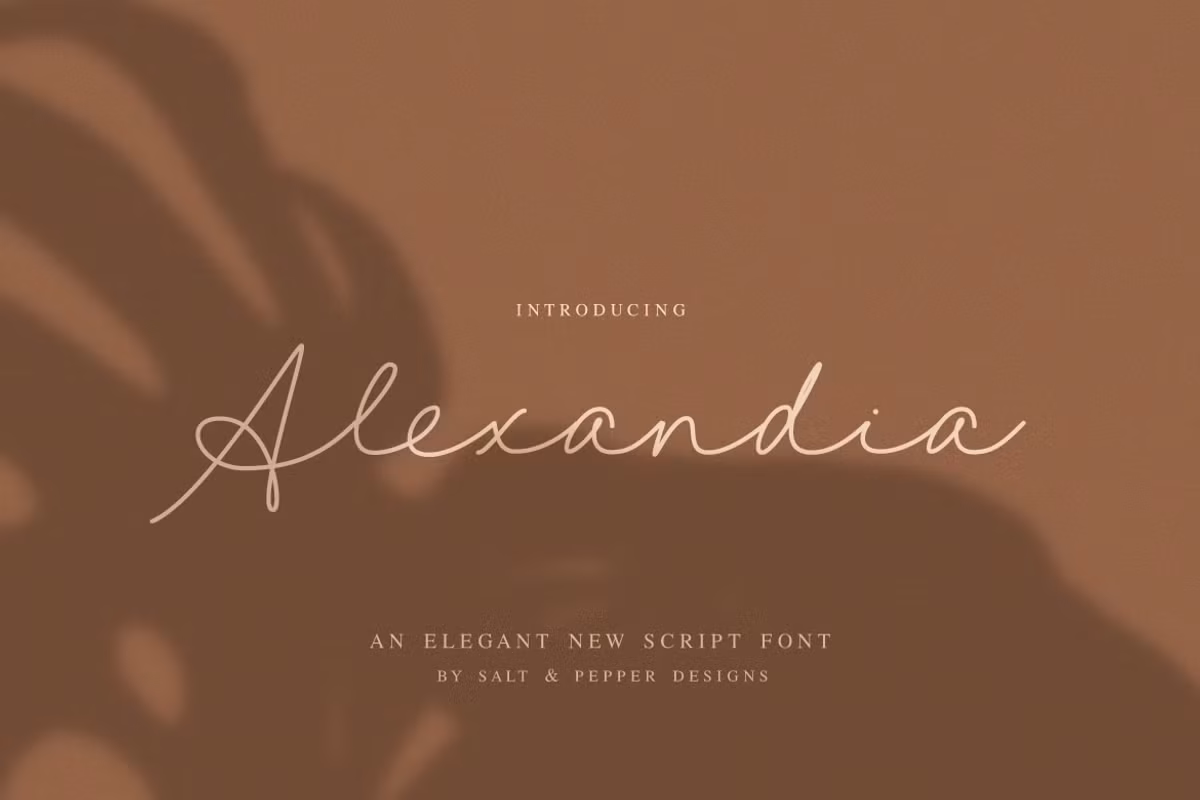
Add a touch of elegance and charm to your design with the Alexandia Script Font Free Download — a graceful handwritten script that flows with style and sophistication. Featuring smooth curves, delicate swashes, and a natural rhythm, this font is perfect for wedding invitations, personal branding, greeting cards, beauty product packaging, and elegant social media graphics.
Alexandia Script captures the feel of modern calligraphy with a timeless appeal, making your typography feel warm, personal, and refined. Whether you're crafting a logo or designing a romantic quote layout, this font brings beauty and personality to every letter.